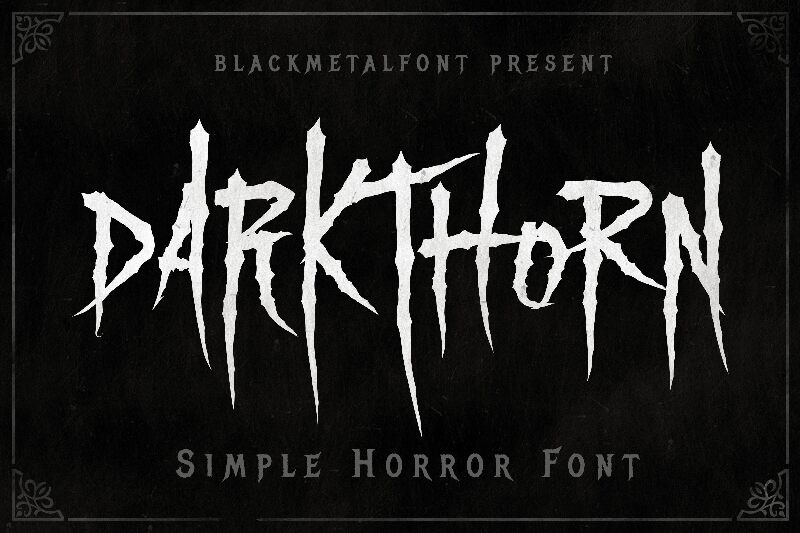
Dark Thorn font by Lettersiro Studio is a free horror font for personal use with features inspired by spooky themes and grungy design. Its metaphoric claws are sharp, and its presence is unsettling, which can make this font a useful visual element in works that require sharp points and dark vibes. Each letter in its alphabet is unique, inspired by forms in nature but taken to the extreme.
Dark Thorn is a suitable choice for various horror artwork including books, movies, and handwritten apps for users looking for a sinister approach. Dochir styles, a fierce and bloodthirsty font, can also be added to gaming platforms and online channels, put on posters, and used for name presentations, and even branding designs.